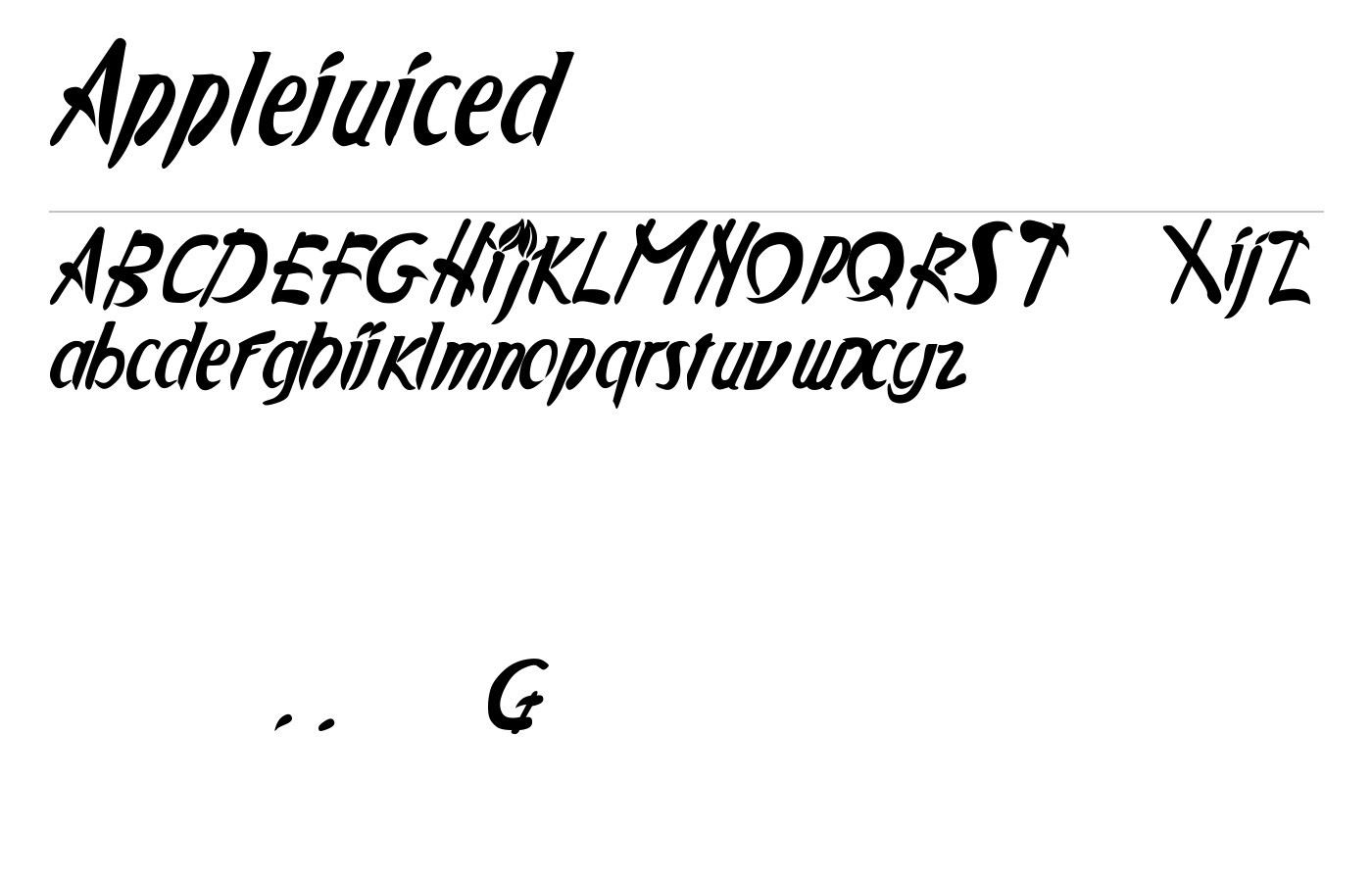
Applejuiced is a lively script font with a playful, organic flair, featuring smooth, flowing strokes and distinctive leaf and flame motifs within some letters that add a natural, whimsical touch. Its moderately condensed, dynamic letterforms with a casual yet elegant feel make it perfect for branding, packaging, and headlines where a fresh, energetic vibe is desired. This font works especially well for creative projects that want to convey vitality, nature, or a handcrafted aesthetic.
Applejuiced Font
About Applejuiced Font
| Font family | Applejuiced Font |
| Designer | High-Logic - Erwin Denissen 1999 |